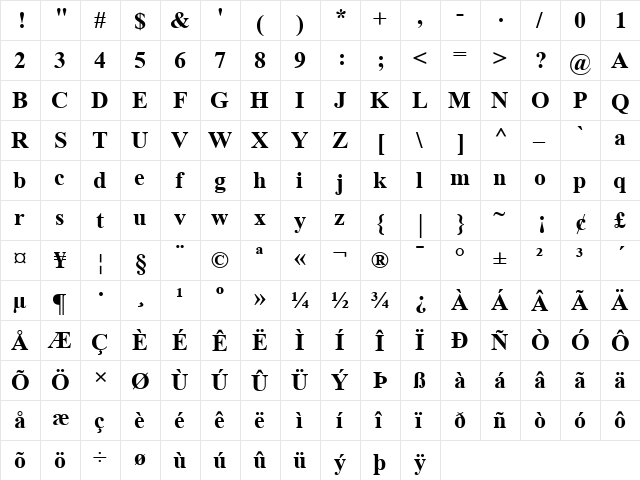
Times New Roman PS MT Regular
Design Context for Times New Roman PS MT Typeface
Times New Roman PS MT takes a measured approach to typography — its balanced proportions and neutral character make it a reliable workhorse for both digital and print work.
Pro Tip: Use Times New Roman PS MT in both headline and body roles to test its range before committing to a single application.